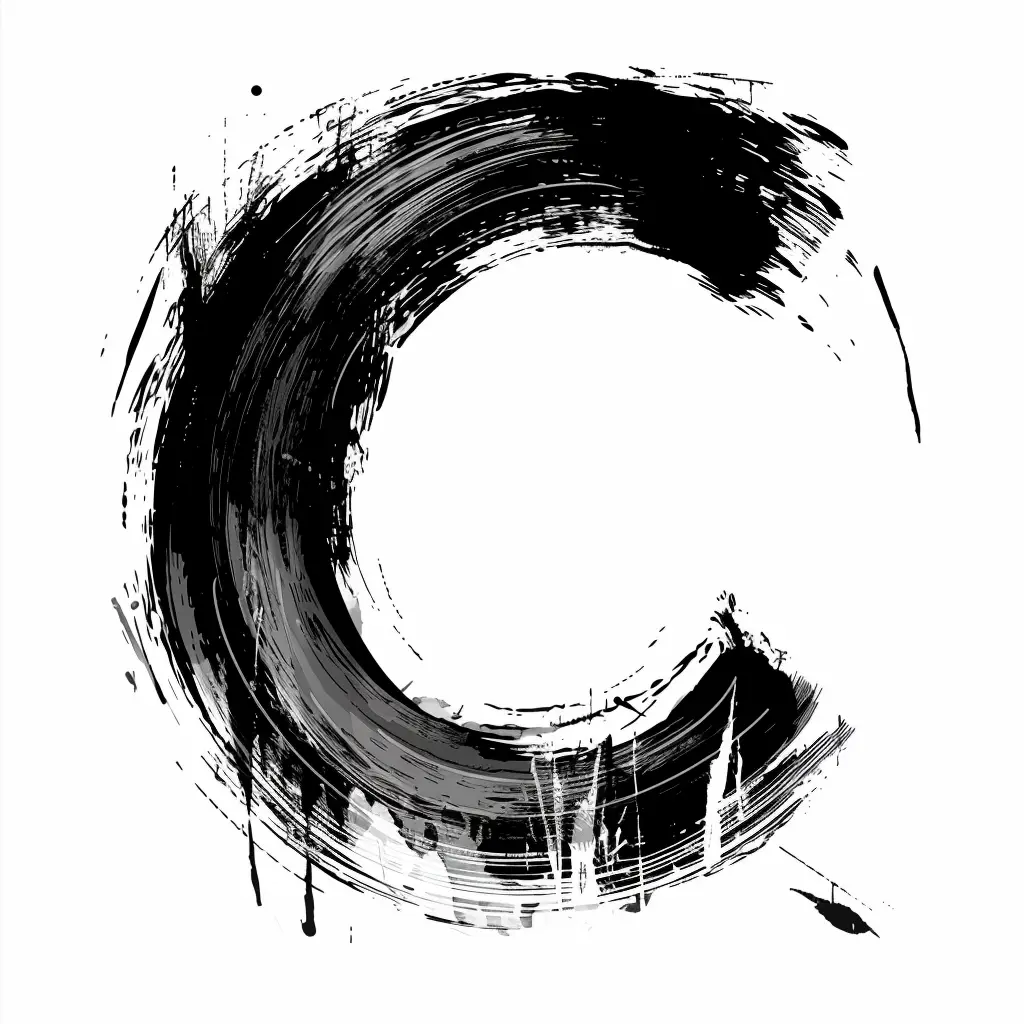
This image features a bold, abstract circular form resembling an enso (Zen circle) rendered in stark black and white. The brushstroke style is dynamic and textured, with layered, sweeping strokes creating depth, while splatters, drips, and rough edges add a raw, expressive quality. The high-contrast monochrome palette emphasizes the circular shape’s movement and the organic, imperfect nature of the hand-drawn technique.